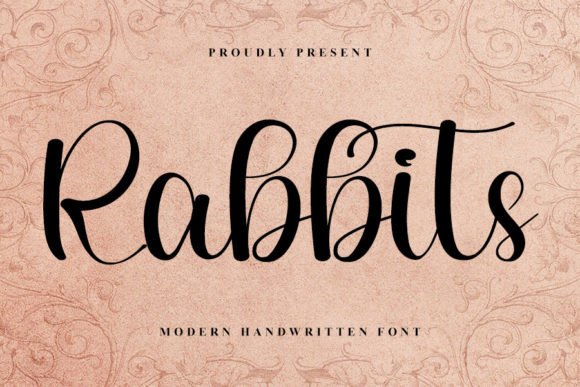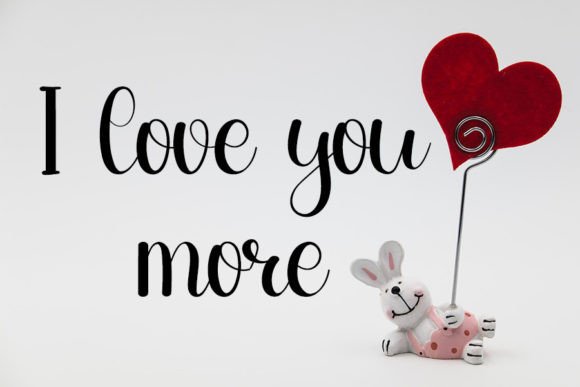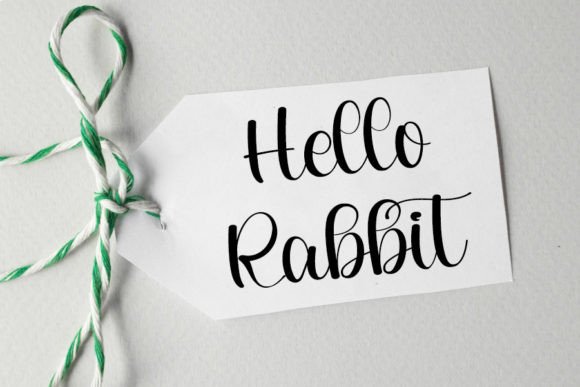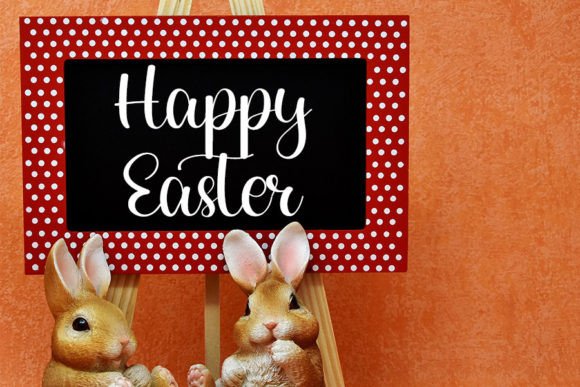
Rabbits Font
About Rabbits Font
**Rabbits** is a meticulously designed handwritten font that combines neatness with elegance, resulting in a beautiful typeface that is perfect for a wide range of creative projects. This font is distinguished by its timeless style and distinctiveness, making it an ideal choice for adding a touch of sophistication to your favorite designs. As you explore its unique qualities, you’ll find that Rabbits has the potential to transform your projects into something truly spectacular.
One of the standout features of Rabbits is its meticulous craftsmanship, which gives it a neat and well-balanced appearance. This font exudes a sense of refinement and elegance, making it a versatile choice for a variety of design applications.
The timeless style of Rabbits ensures that it can be applied to both contemporary and classic projects. Whether you’re working on branding, logos, product packaging, invitations, posters, or any other creative endeavor, this font adds a touch of distinction that sets your designs apart.
The font’s distinctiveness lies in its ability to convey a sense of creativity and sophistication. Its elegant touch enhances the visual appeal of your projects, making them truly spectacular and captivating to your audience.
In summary, Rabbits is a neat and beautiful handwritten font that embodies an elegant touch and timeless style. Its versatility and distinctiveness make it an excellent choice for various design projects, and its ability to elevate your work to new heights ensures that you’ll fall in love with its unique charm. Use Rabbits to infuse your designs with a touch of sophistication and create truly spectacular visuals.